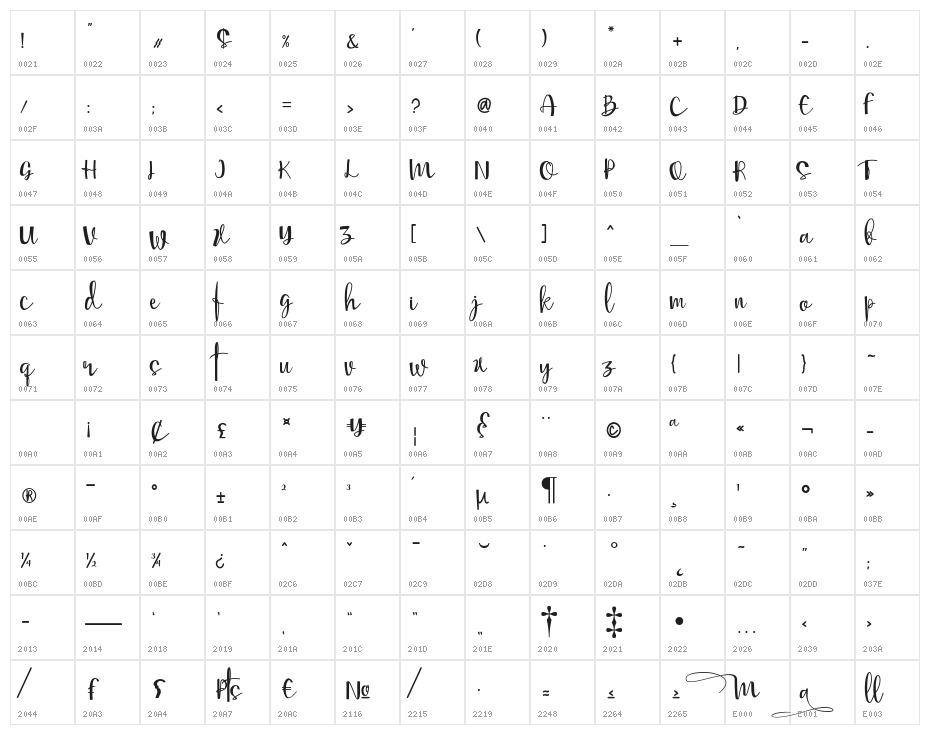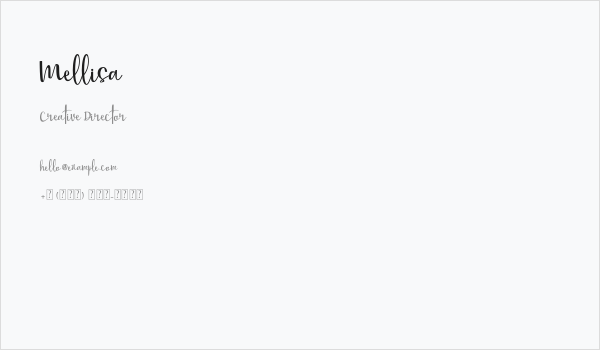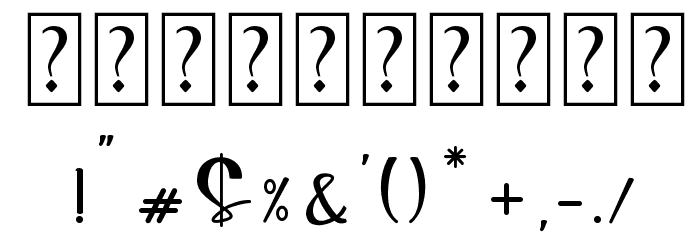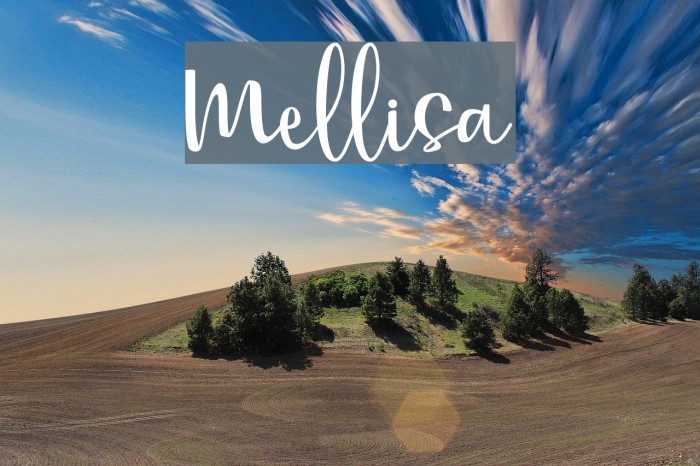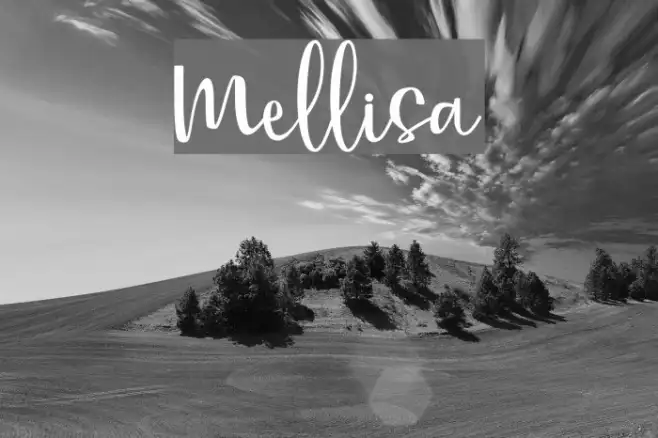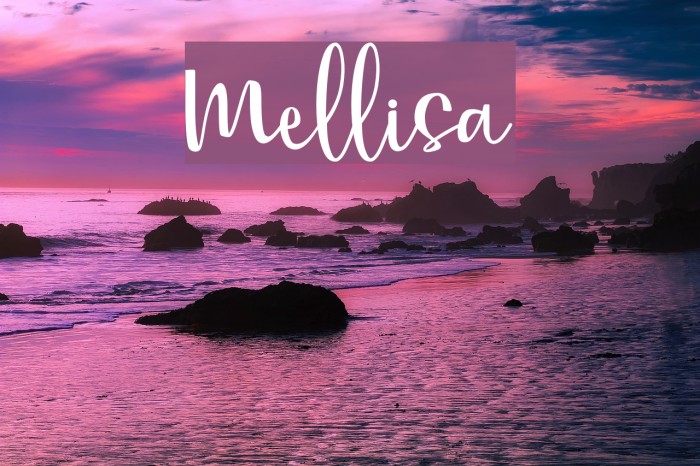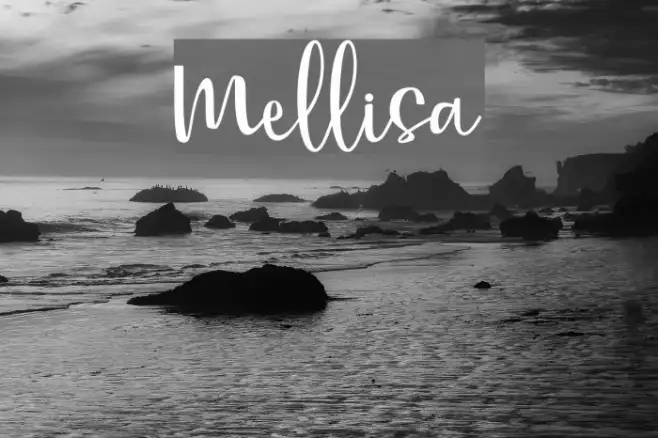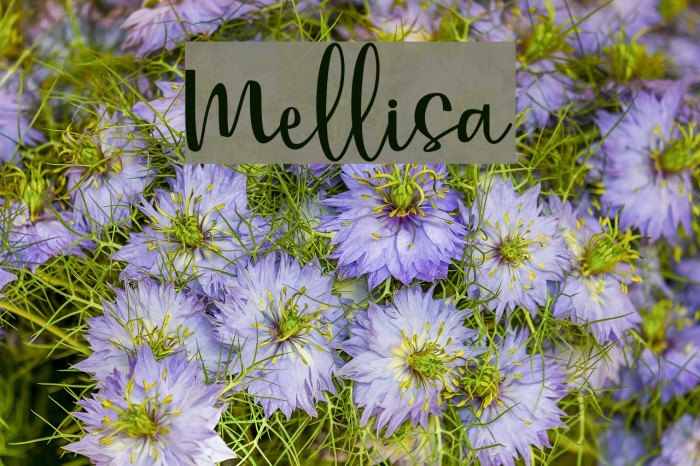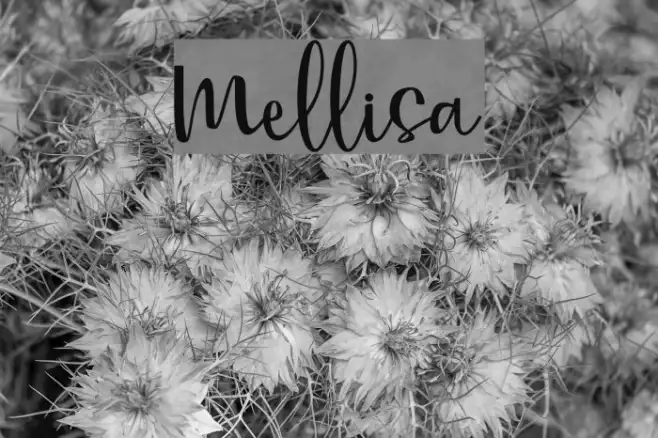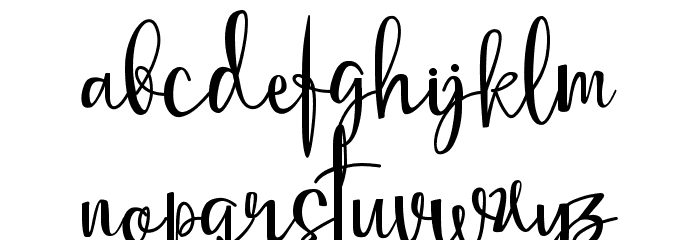
Mellisa Font
Mellisa Description
This font features a playful and elegant script style with a modern twist. The uppercase letters are bold and flowing, with a distinctive loop and curl that adds a touch of sophistication. The lowercase letters maintain a consistent style, with smooth curves and a handwritten feel. The numbers and special characters complement the overall design, providing versatility for various uses. The font's unique style makes it suitable for creative projects, adding a personal and artistic touch to any design.
| Use Case | Logos, Invitations, Branding |
| Proposed Projects | Ideal for wedding invitations, greeting cards, branding, and logo design, where a personal and artistic touch is desired. |